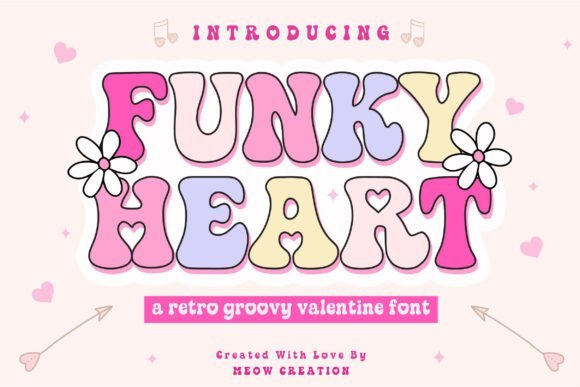
Have you ever been stuck on a design project, searching for that perfect font to bring your idea to life? I know I have. But then, it hits you – that one font that makes everything fall into place. For me, it was the Funky Heart Font, a vibrant retro groovy font that screams fun and personality.
Perfect for Valentine’s Day projects, this playful typeface features bold curves, smooth lines, and a touch of heart-inspired charm. Whether you’re designing greeting cards, posters, t-shirts, or social media graphics, the Funky Heart Font adds a nostalgic retro vibe that makes your message stand out. As a designer, you’ll love its versatility and ability to add a fun, romantic twist to any project.
With the Funky Heart Font, you’ll be able to create designs that truly make a statement, making every Valentine’s Day creation a little more special.
Funky Heart Font Key Features
- Unique Characteristics: Distinctive, hand-drawn design with a fun, playful feel; features a mix of bold and cursive styles
Funky Heart Font Review
Funky Heart Font is a quirky and playful font that’s sure to grab attention. I’ve been experimenting with it, and here’s what I think:
- ✨ Unique style: Funky Heart Font has a distinct, hand-drawn feel that’s perfect for adding a touch of whimsy to your designs.
- ✨ Versatile: It’s not just limited to headings or titles – you can use it for body text, too, without it feeling too overwhelming.
- ✨ Fun for creative projects: Whether you’re working on a children’s book, a music album, or a social media campaign, Funky Heart Font is a great choice.
- ⚠️ Limited legibility: In certain situations, the font can be hard to read, especially at small sizes or in complex layouts.
- ⚠️ May not be suitable for formal projects: If you’re working on a professional or corporate project, Funky Heart Font might not be the best choice due to its playful nature.
Funky Heart Font is a fun and creative font that’s perfect for designers who want to add a touch of personality to their projects. While it may have some limitations, it’s still a great choice for the right kind of project. With some careful use and consideration, you can achieve amazing results with this font.
For the best results, use the Funky Heart Font for playful, creative, and eye-catching designs. It’s perfect for:
- Social media graphics and posts
- Party and event flyers
Remember to pair the Funky Heart Font with other playful and creative elements to create a cohesive and engaging design.